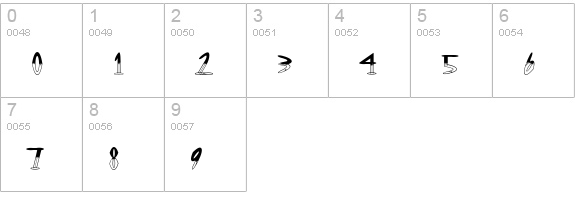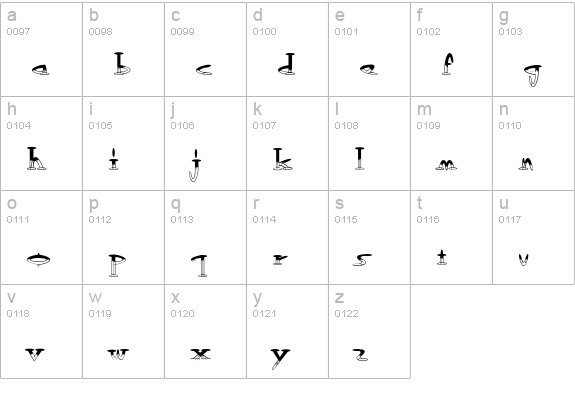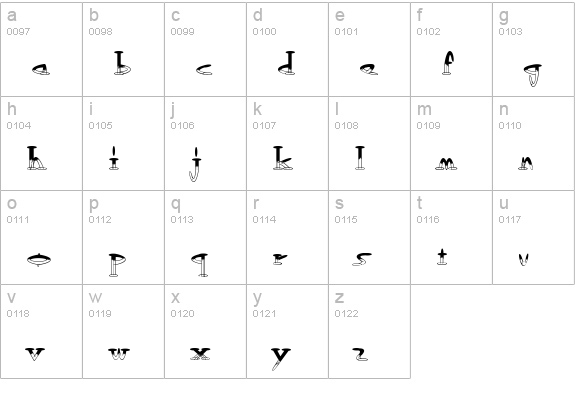
OutwestHalfEmpty Font Details
OutwestHalfEmpty font is a unique and eye-catching typeface that brings a touch of rustic charm to any design project. With its open and airy style, this font exudes a sense of adventure and exploration, making it perfect for outdoor-themed designs or projects that require a laid-back, casual feel. The OutwestHalfEmpty font is freely available to download at FontsMarket.com, making it easily accessible for designers and creatives looking to add a touch of the wild west to their work. Whether you're creating posters, logos, or social media graphics, this font is sure to make a bold statement and stand out from the crowd. With its distinctive character and versatile appeal, OutwestHalfEmpty font is a must-have for anyone looking to add a touch of rugged beauty to their designs. Download it today and unleash your creativity with this stunning font that captures the spirit of the great outdoors.